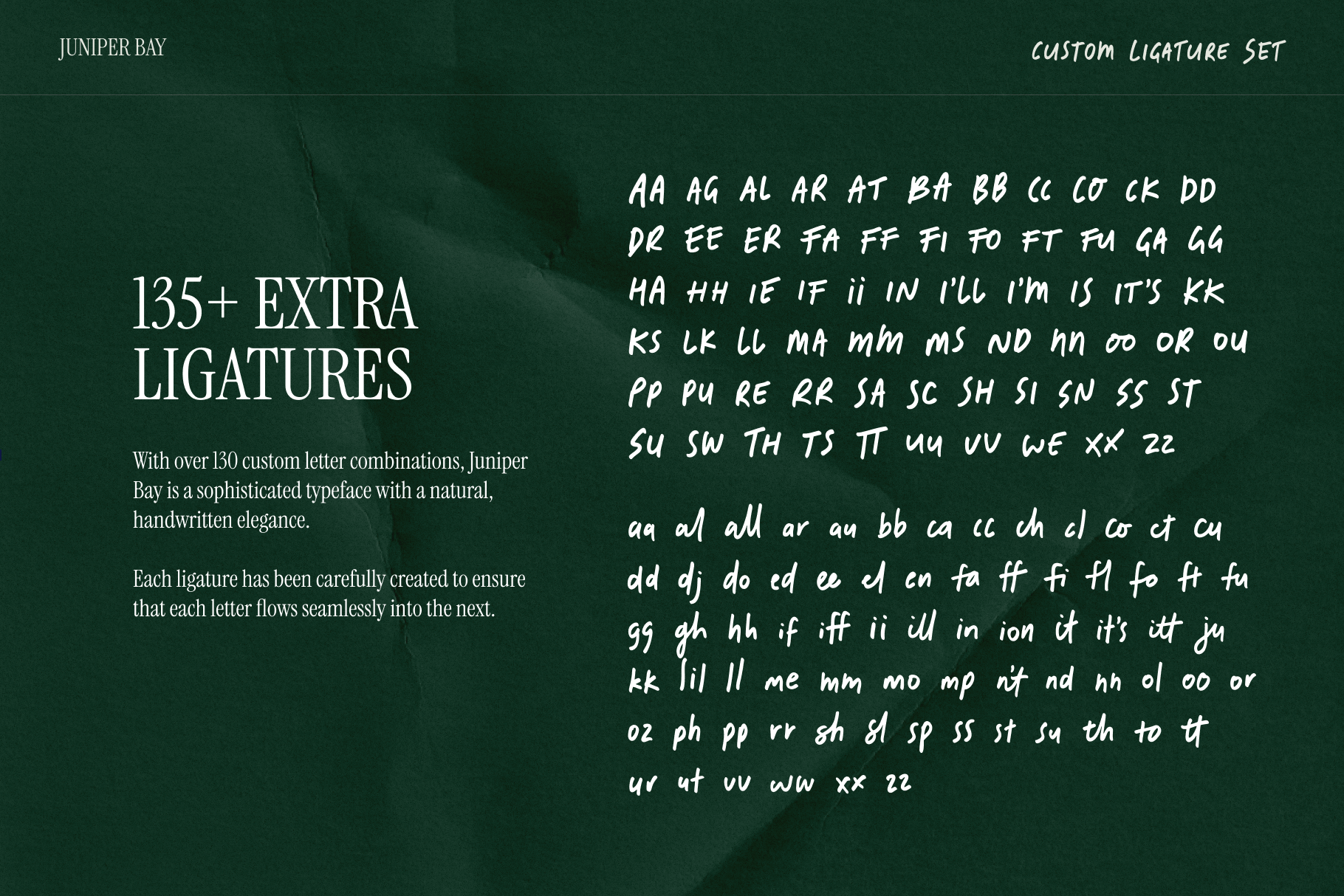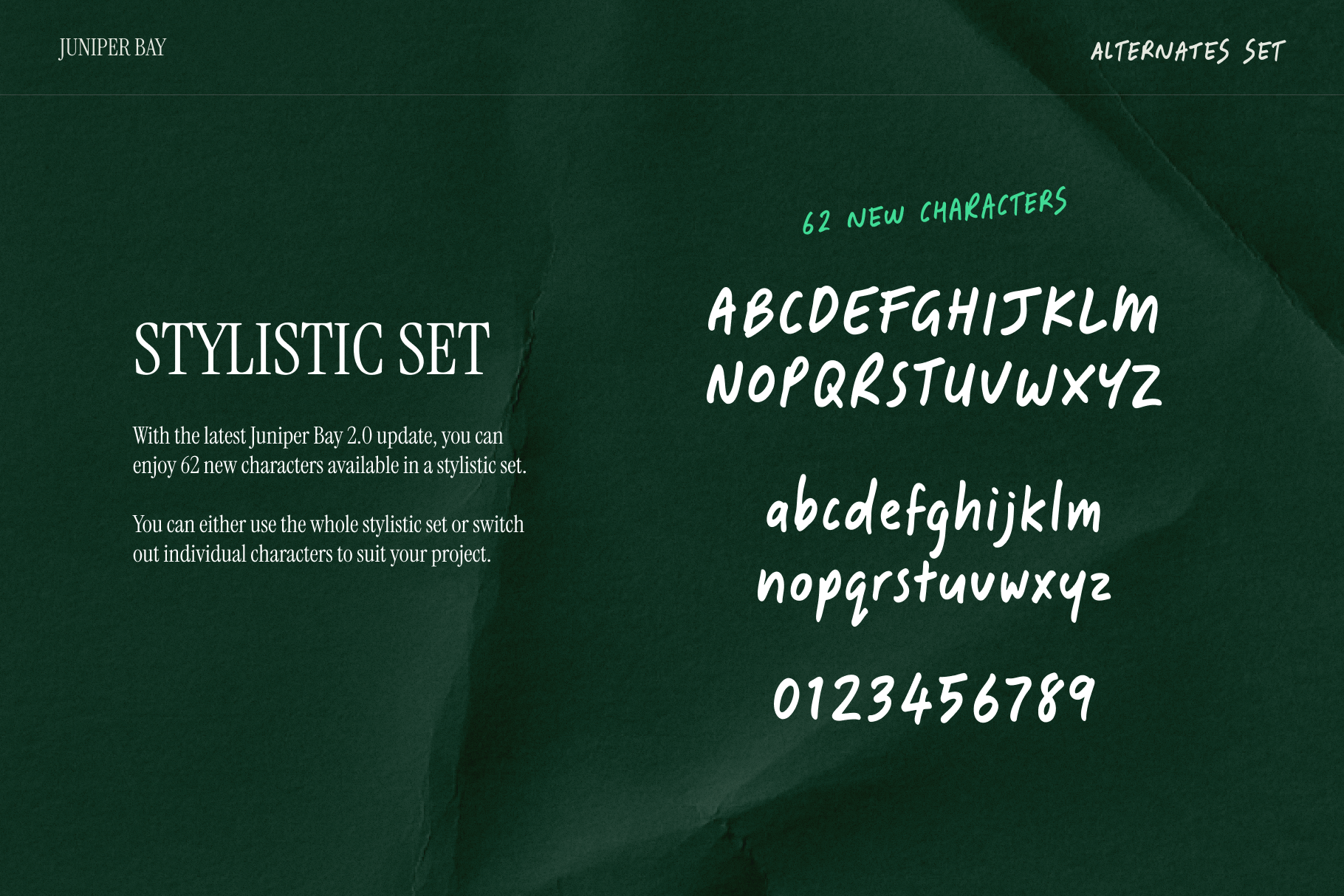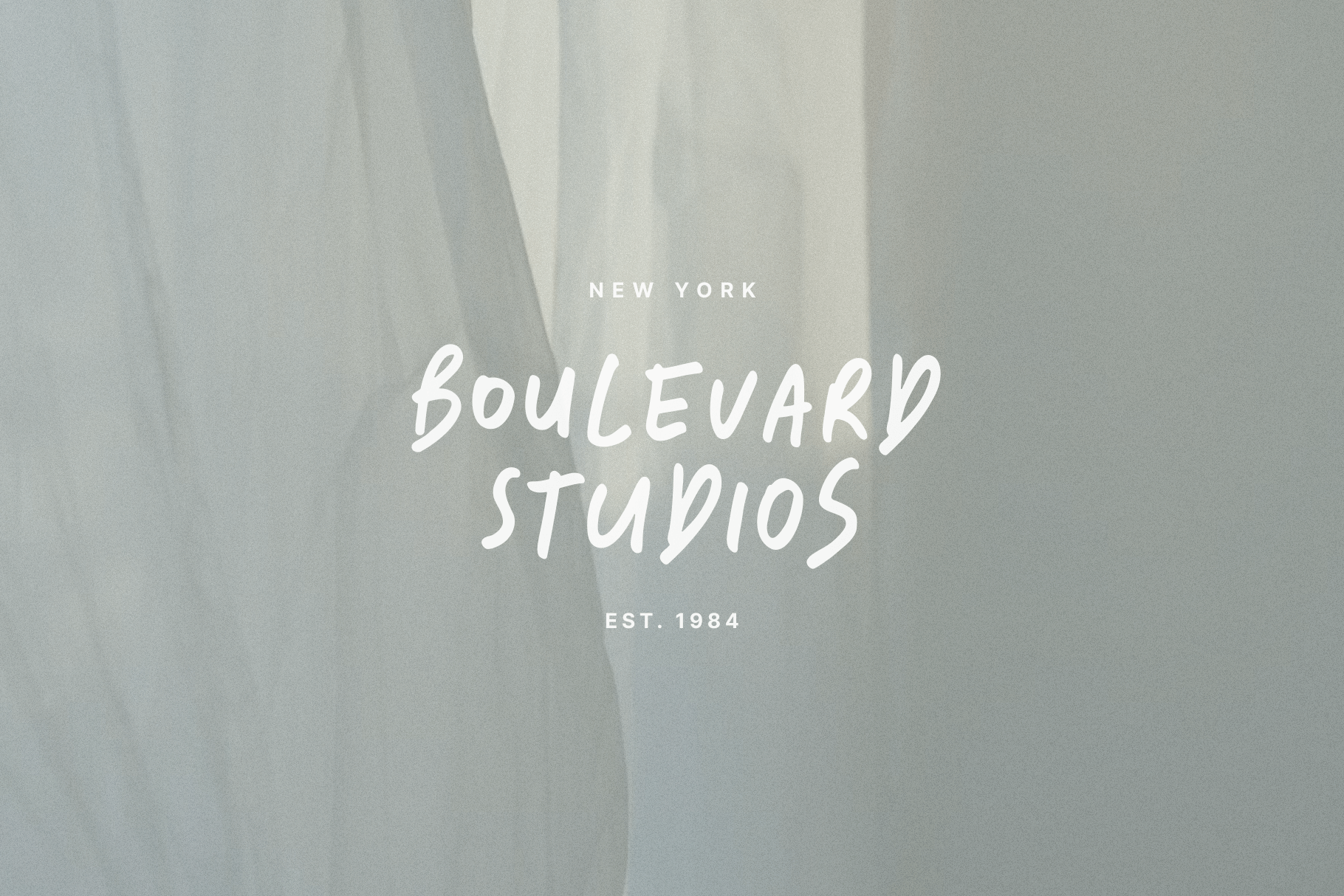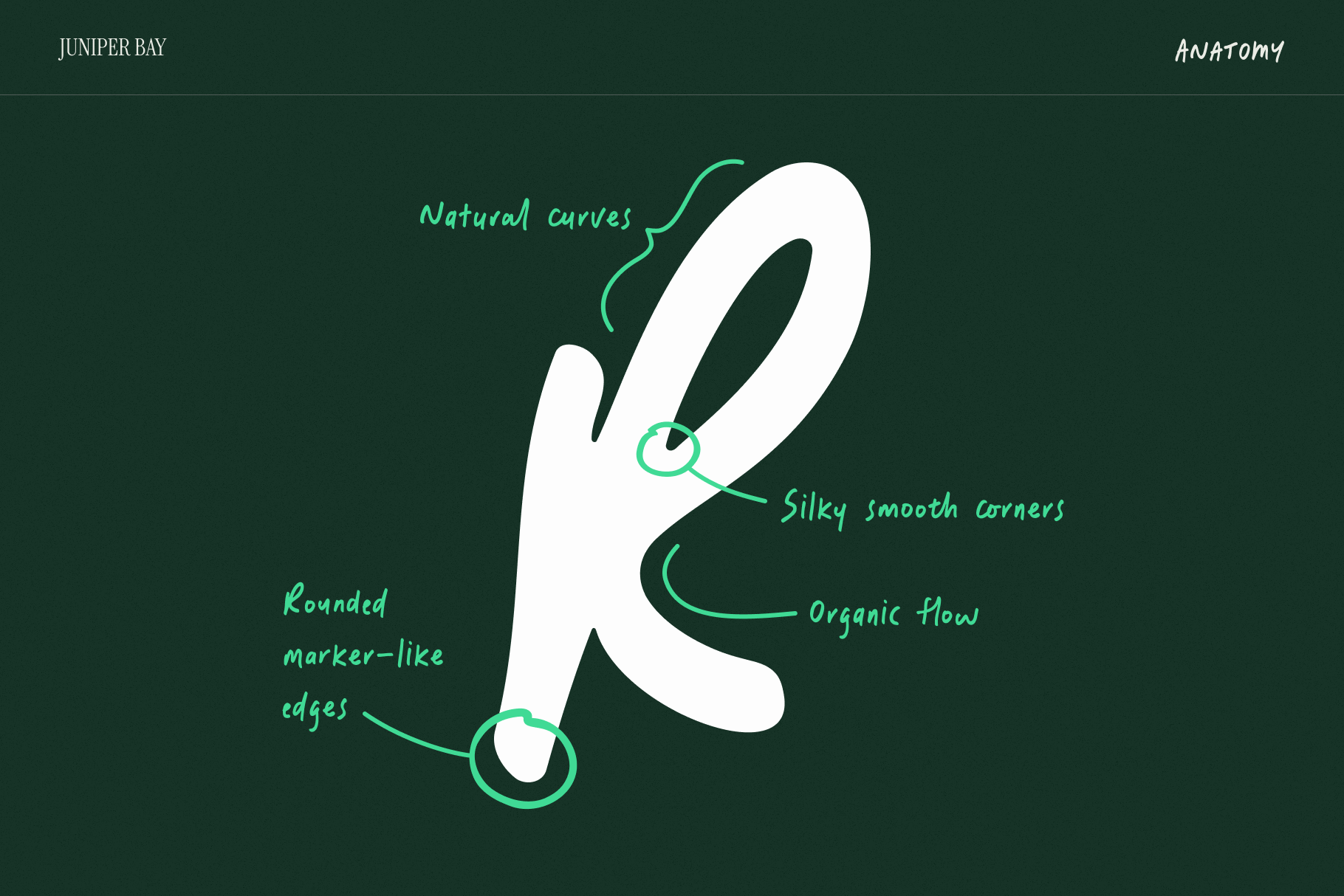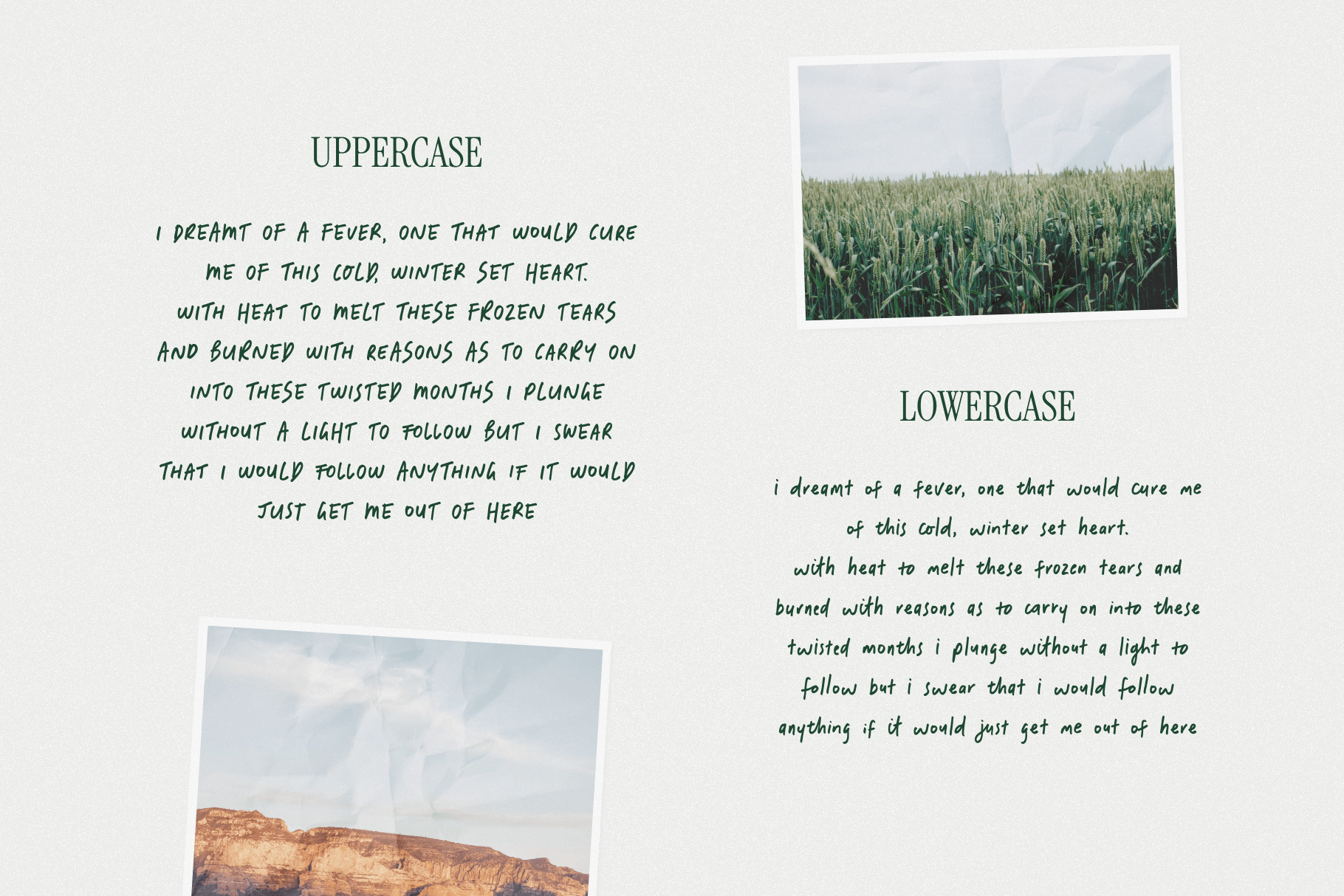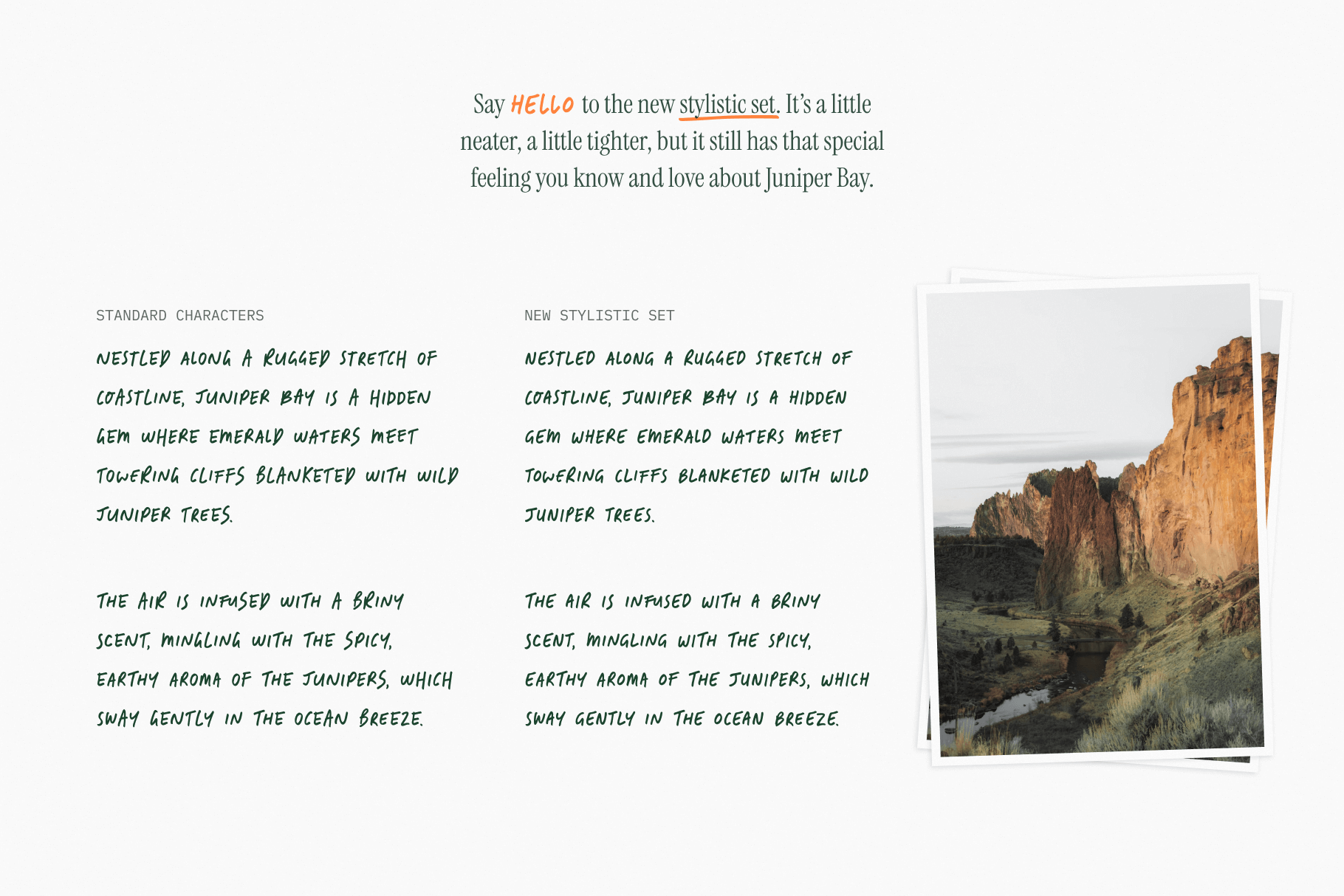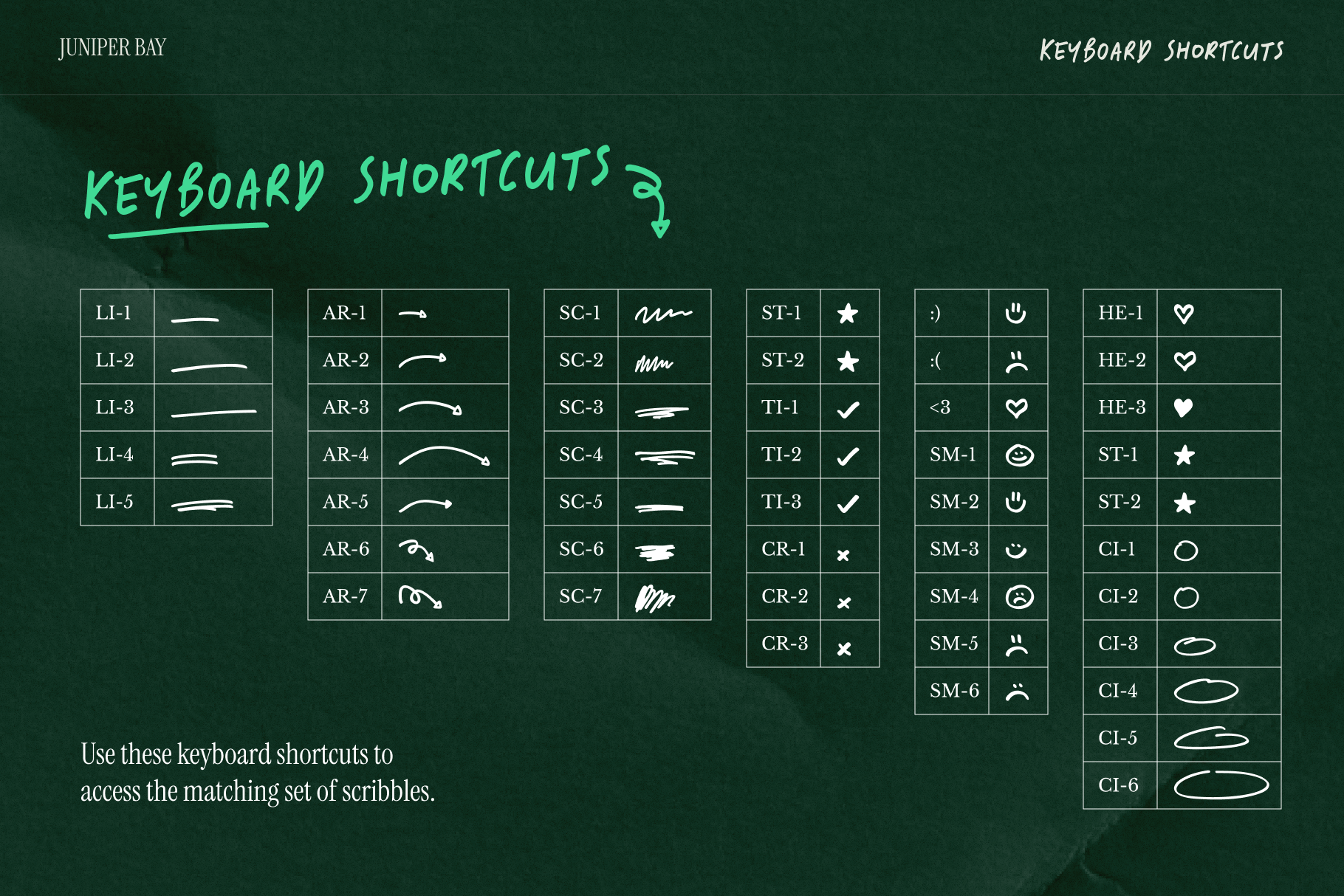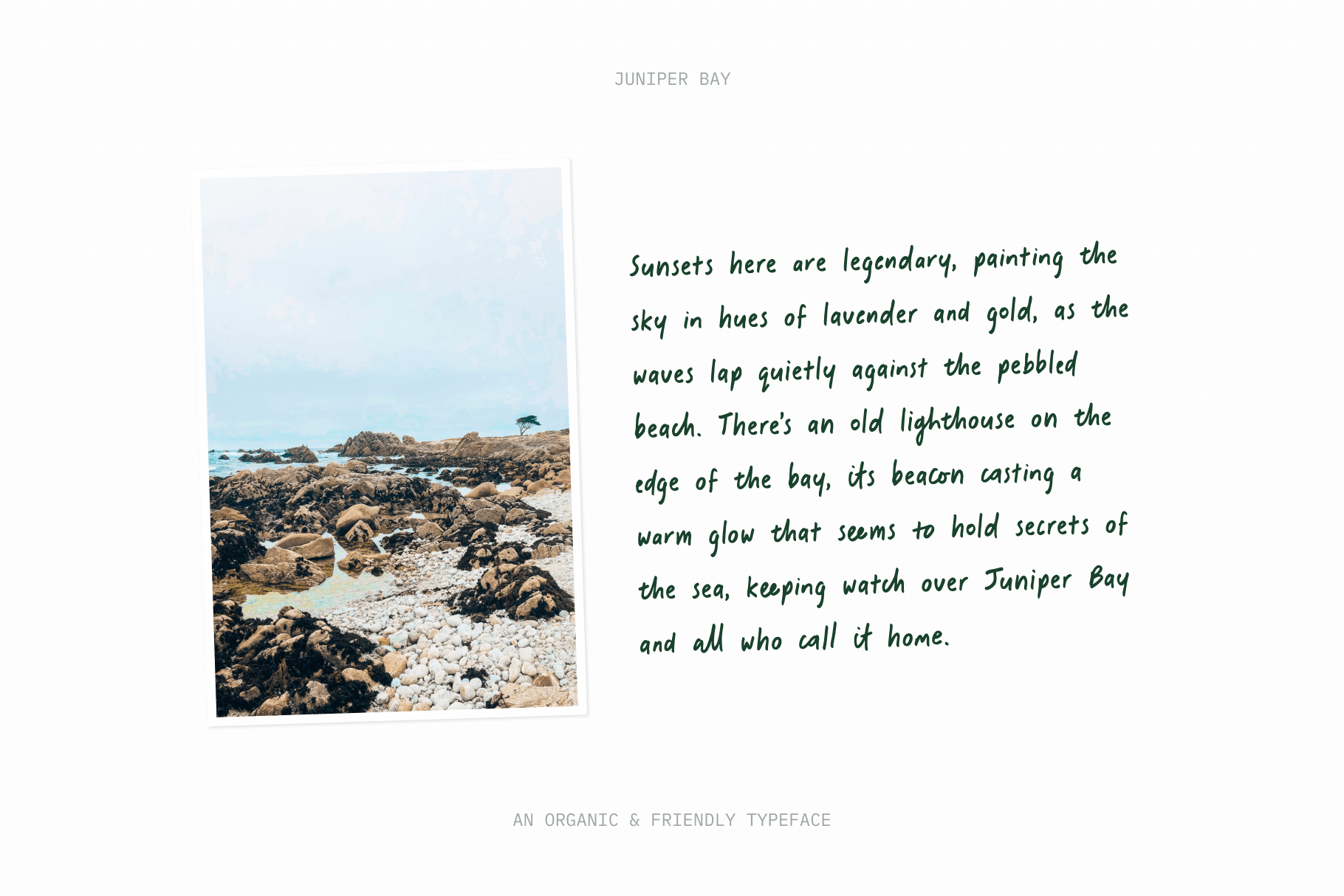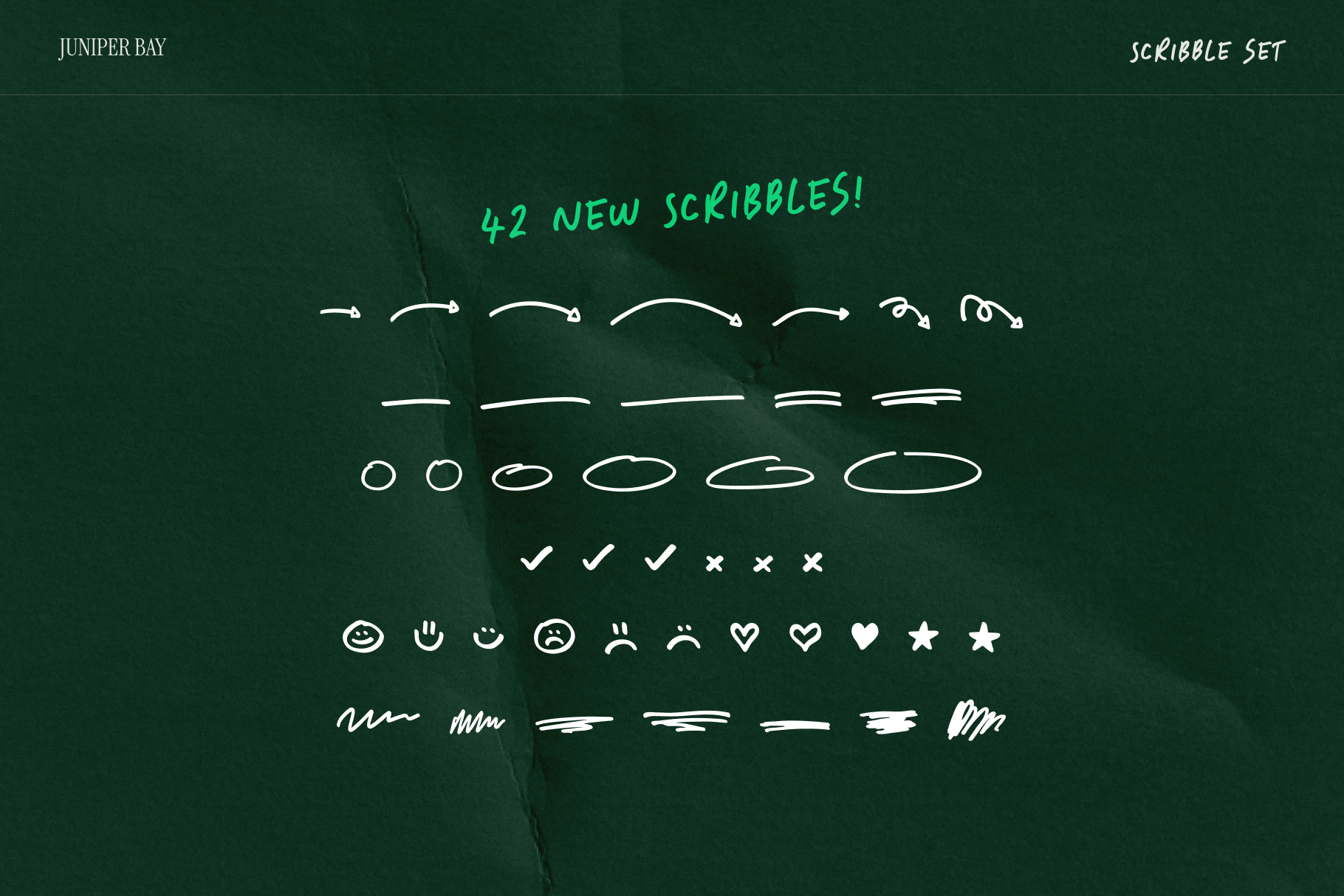
Juniper Bay is a cool, calm & sophisticated handwritten typeface with an organic feel and effortless vibe.
With over 135 custom ligatures, this charming and elegant marker font is perfect for handwritten notes, fashion mockups, social media or even wedding stationery.
This easy breezy typeface has been freshly updated to version 2.0, including improved kerning, legibility and spacing, 67 new characters, 13 new custom ligatures and 42 scribble illustrations.
If you need a little variance, switch to the stylistic alternates set and you’ve got yourself a unique character set with that same Juniper Bay charm.
Bringing a natural, handwritten elegance, Juniper Bay is perfect for your next design. Whether you’re crafting a logo, writing poetry, creating social media graphics, or working on photography, Juniper Bay’s versatility will take your work to the next level.
Juniper Bay has over 135 custom letter combinations and each ligature has been carefully created to ensure that each letter flows seamlessly into the next. The result is a beautiful, cohesive look that will bring warmth and casual charm to any design.